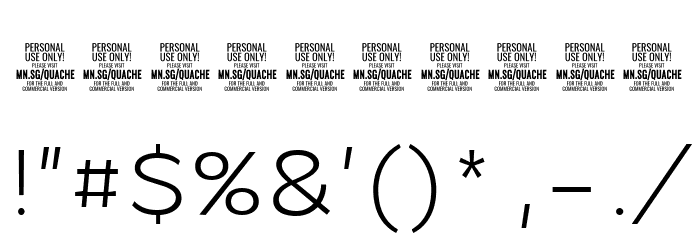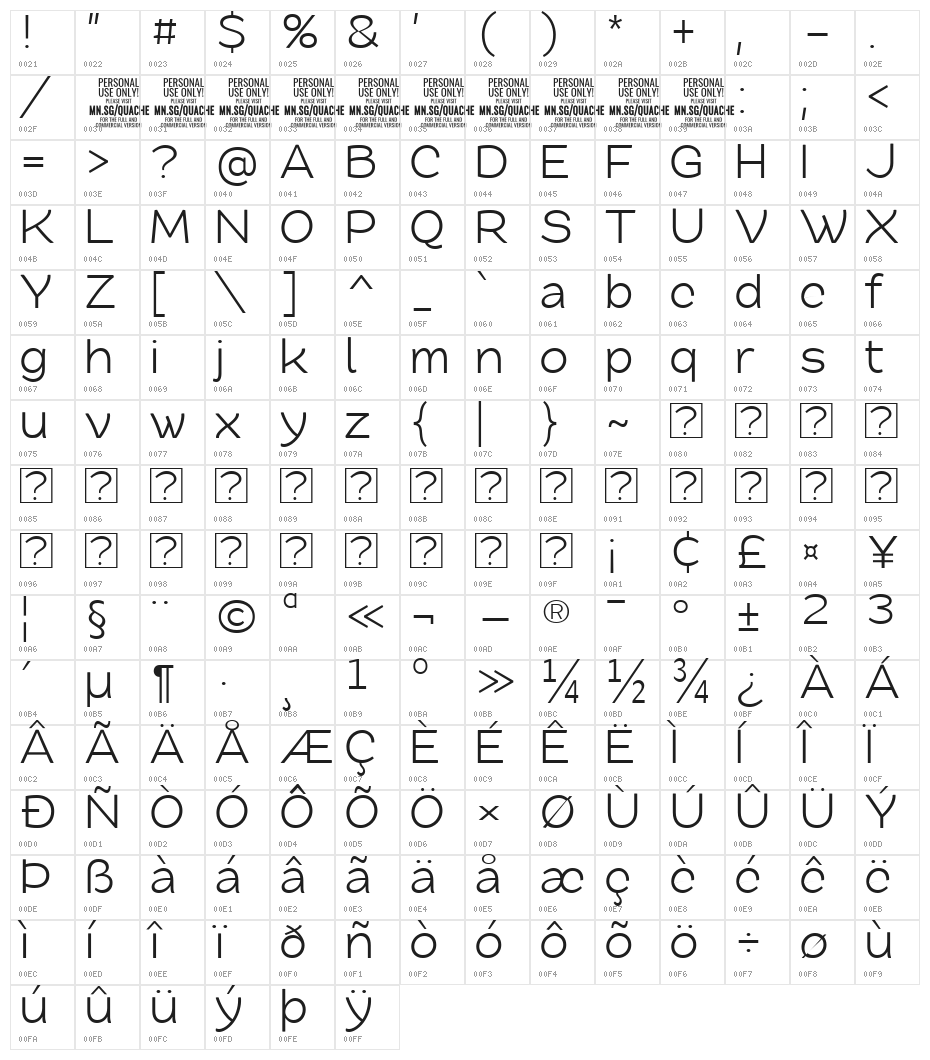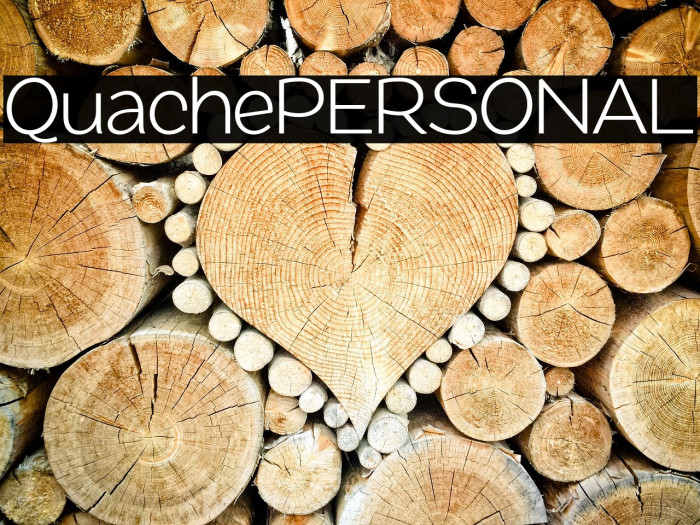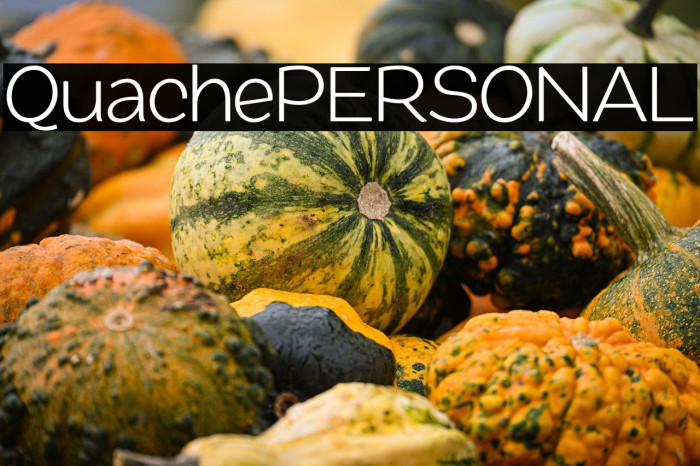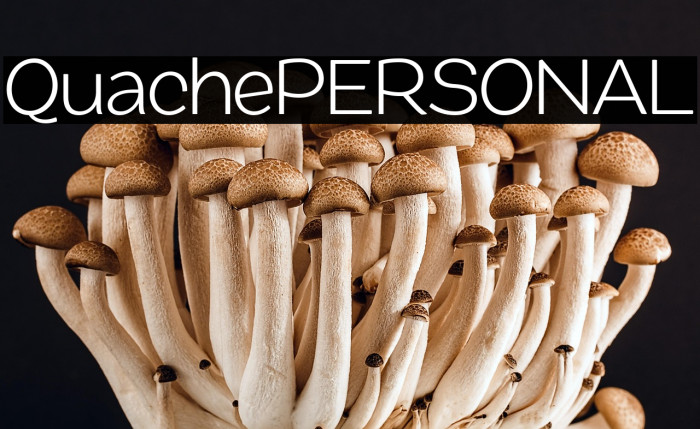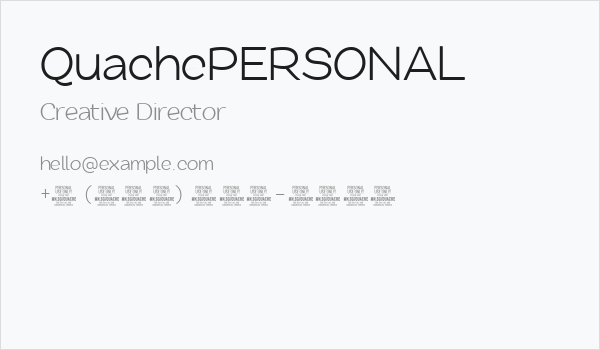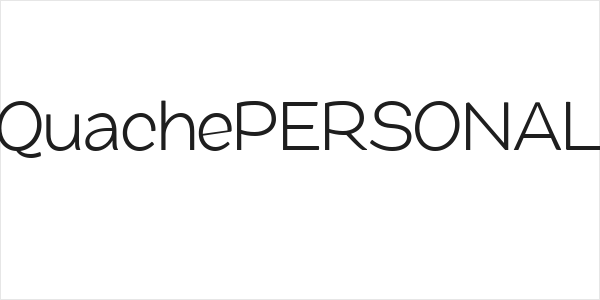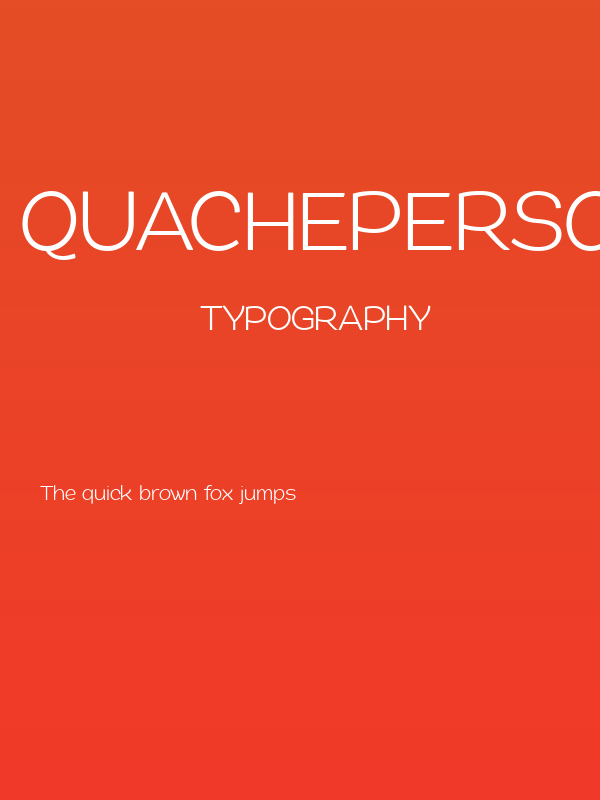
QuachePERSONAL Font
QuachePERSONAL Description
This font exhibits a clean and modern sans-serif style, characterized by its geometric shapes and uniform stroke widths. The uppercase letters are tall and slightly narrow, giving a sleek and professional appearance. The lowercase letters maintain a consistent height, contributing to a harmonious and balanced look. The numerals are clear and easy to read, matching the overall aesthetic of the typeface. Special characters are well-defined, ensuring versatility in various design contexts. This font is suitable for both digital and print media, offering a contemporary feel that is ideal for branding, advertising, and editorial design.